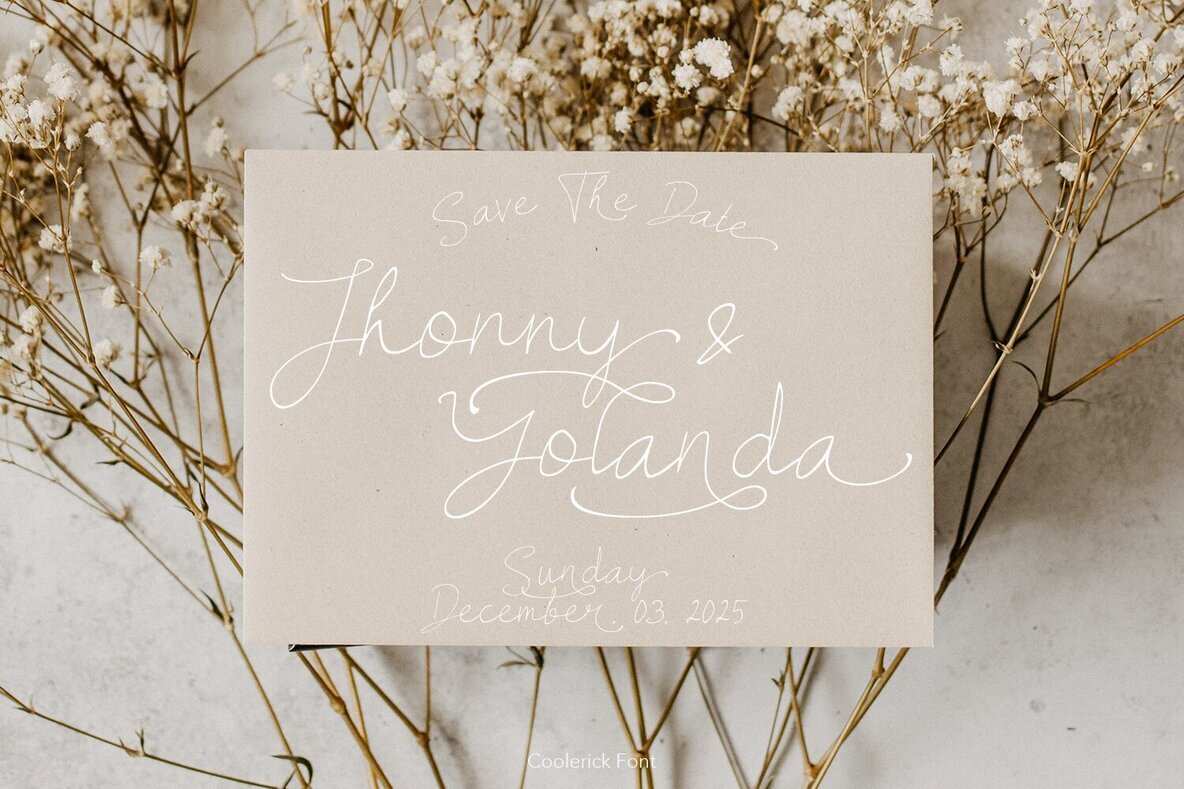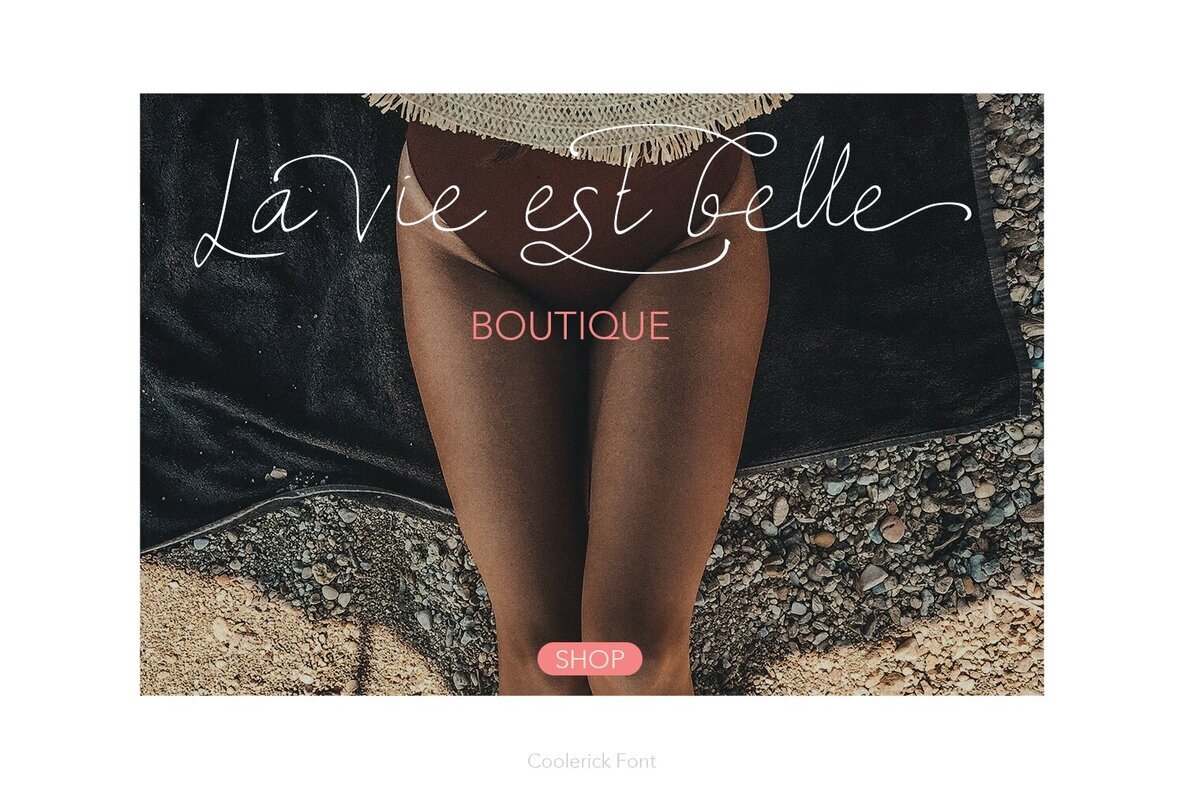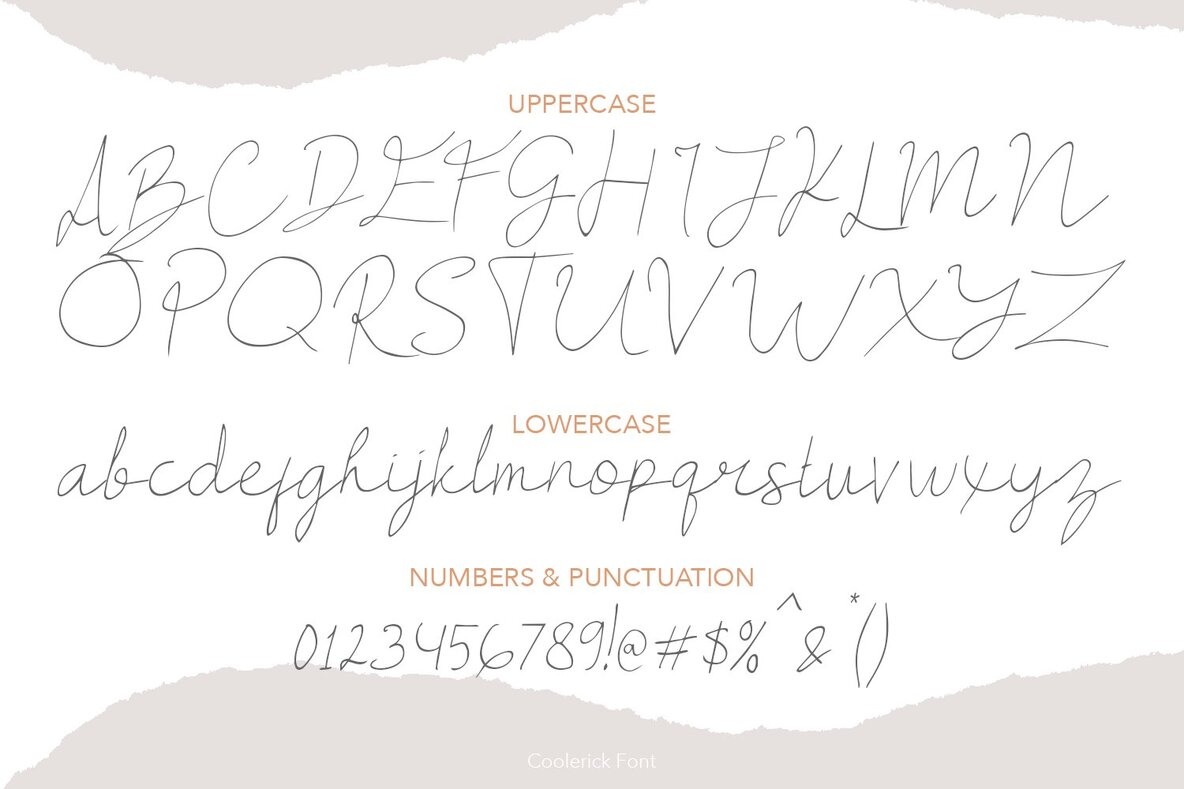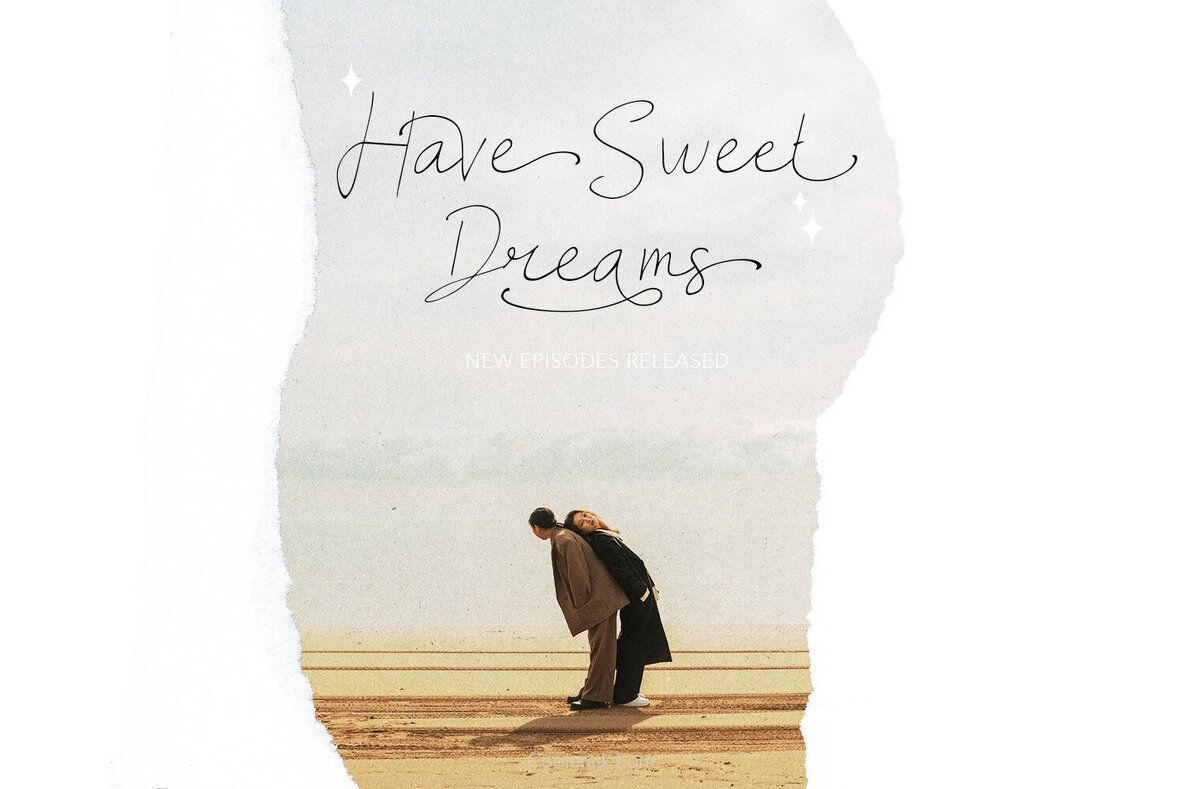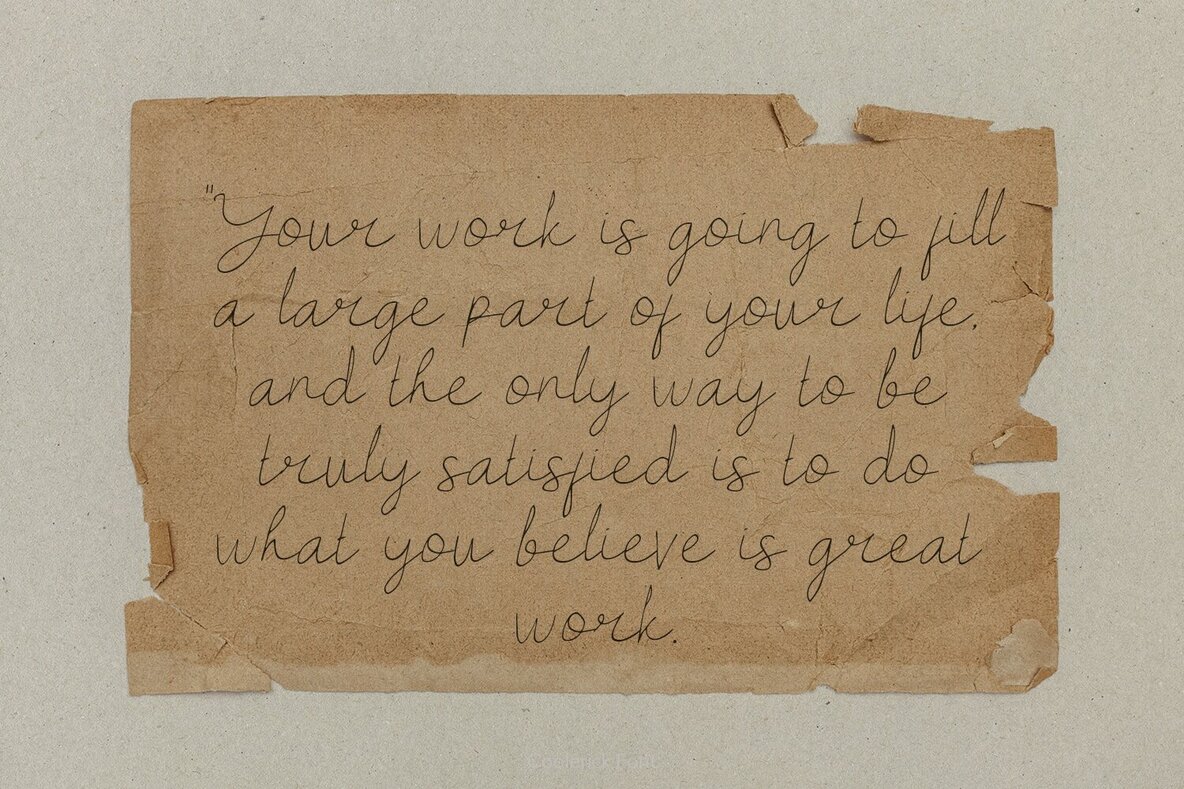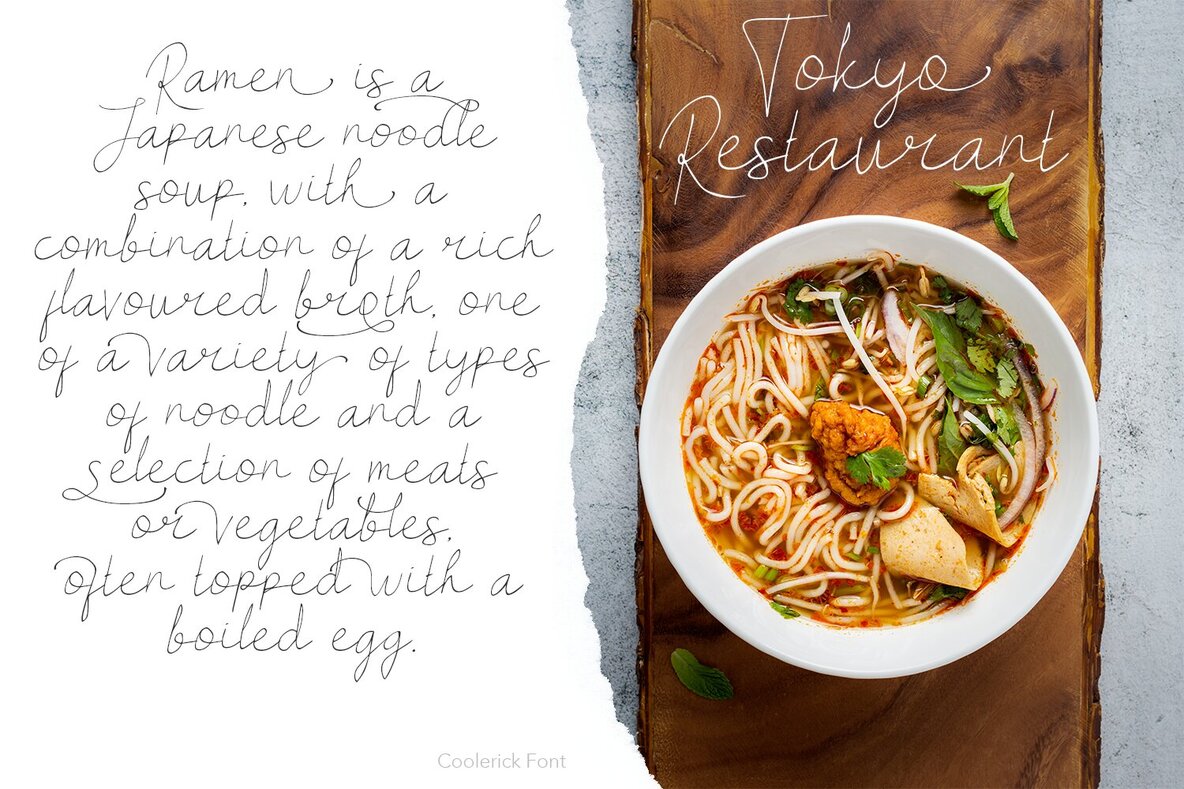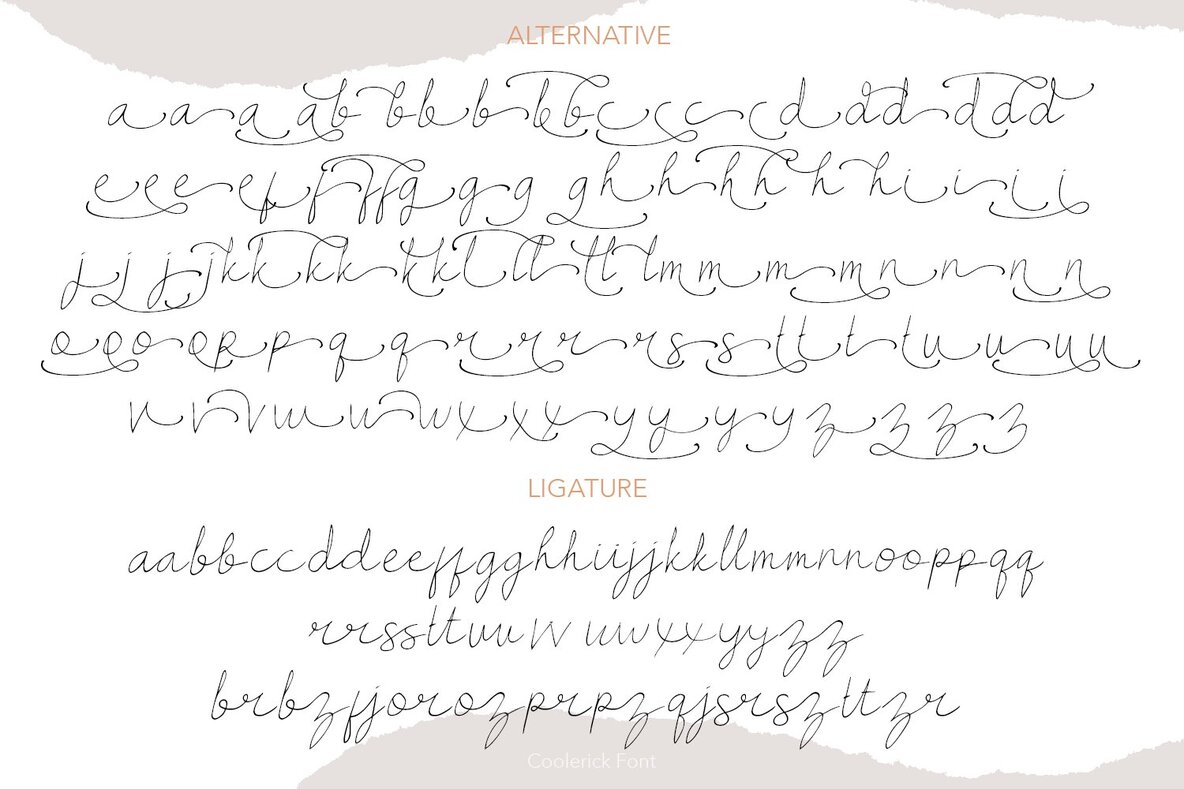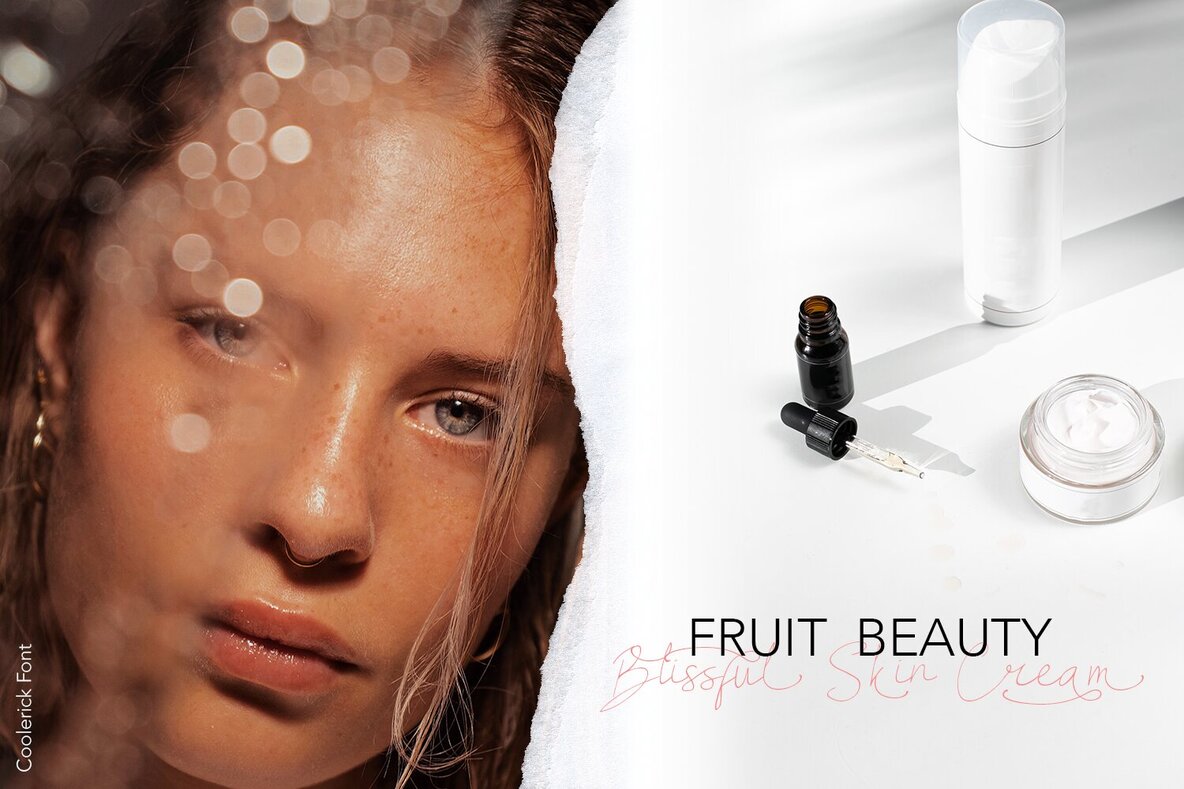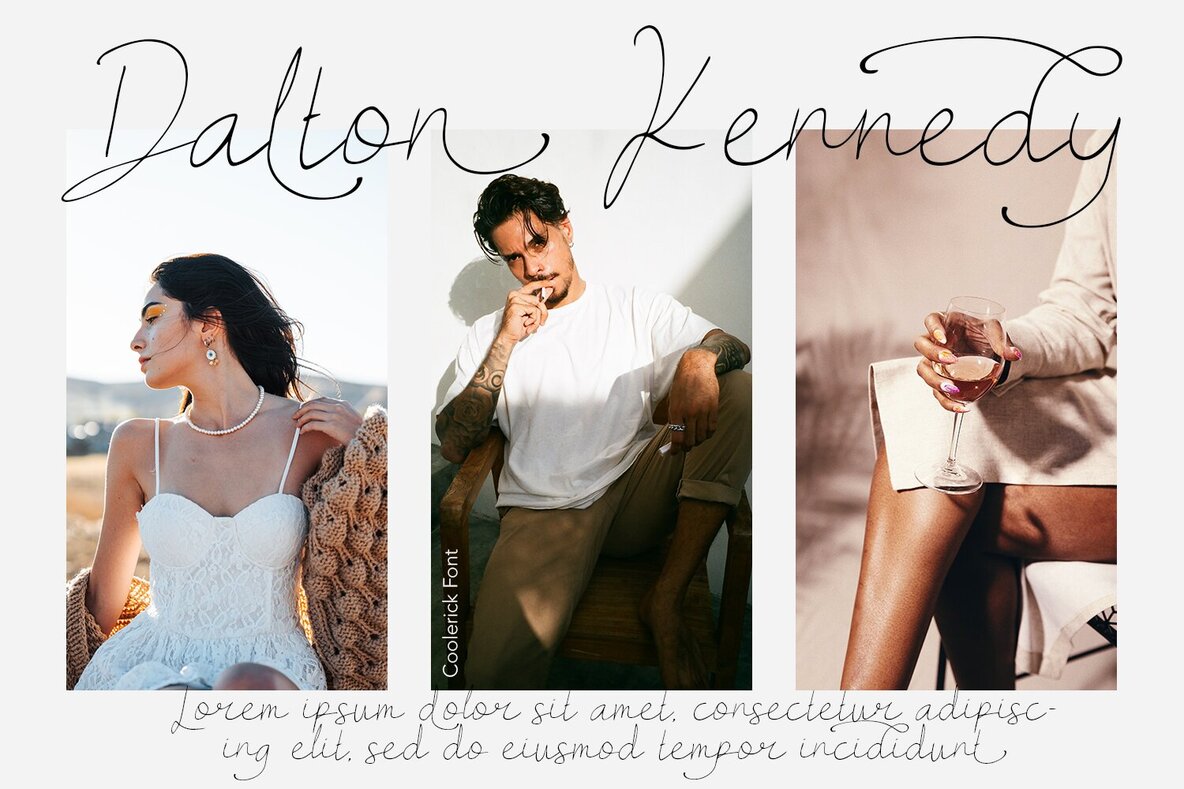
Coolerick Font
Coolerick Regular
Coolerick is a handwritten font described by an elegant touch perfect for your favorite projects. Fall in love with its incredibly distinct and timeless style and use it to create spectacular designs! Coolerick handwritten includes alternative and ligatures to make everything look natural handmade handwritten.